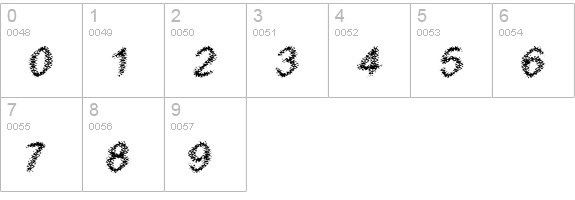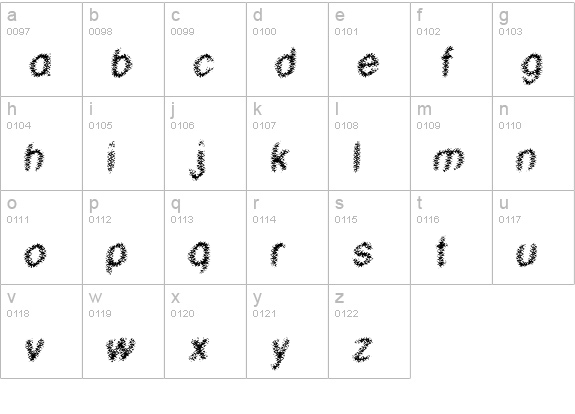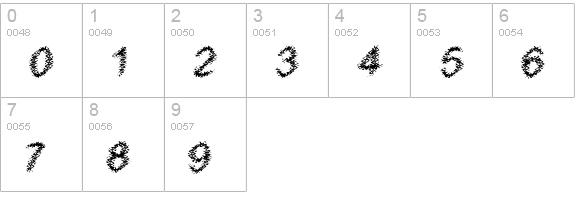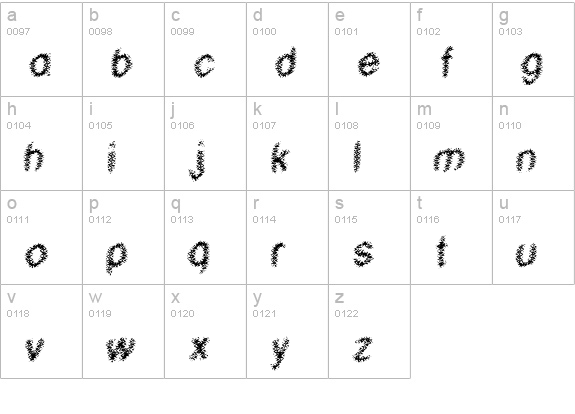
Introducing the WTF font, a revolutionary typeface that pushes the boundaries of design and creativity. This font is unlike anything you've ever seen before, with its unique and captivating letterforms that are sure to make a bold statement in any project. The WTF font is not just visually stunning, but it also offers a seamless reading experience. Each character has been meticulously crafted to ensure legibility while maintaining its distinct and futuristic aesthetic. Whether you're designing a logo, creating a poster, or crafting a website, this font will elevate your work to new heights. What sets the WTF font apart from others is its versatility. It seamlessly transitions from modern and edgy to classic and elegant, making it suitable for a wide range of applications. From fashion and beauty brands to tech startups and creative agencies, this font is a perfect choice for those who dare to be different. And the best part? The WTF font is absolutely free! You can download it at FontsMarket.com, a trusted source for high-quality fonts. So, whether you're a professional designer or a hobbyist looking to add some flair to your projects, the WTF font is readily available for you to unleash your creativity. Don't settle for ordinary when you can have extraordinary. Download the WTF font today and let your designs speak volumes with its captivating and innovative style.